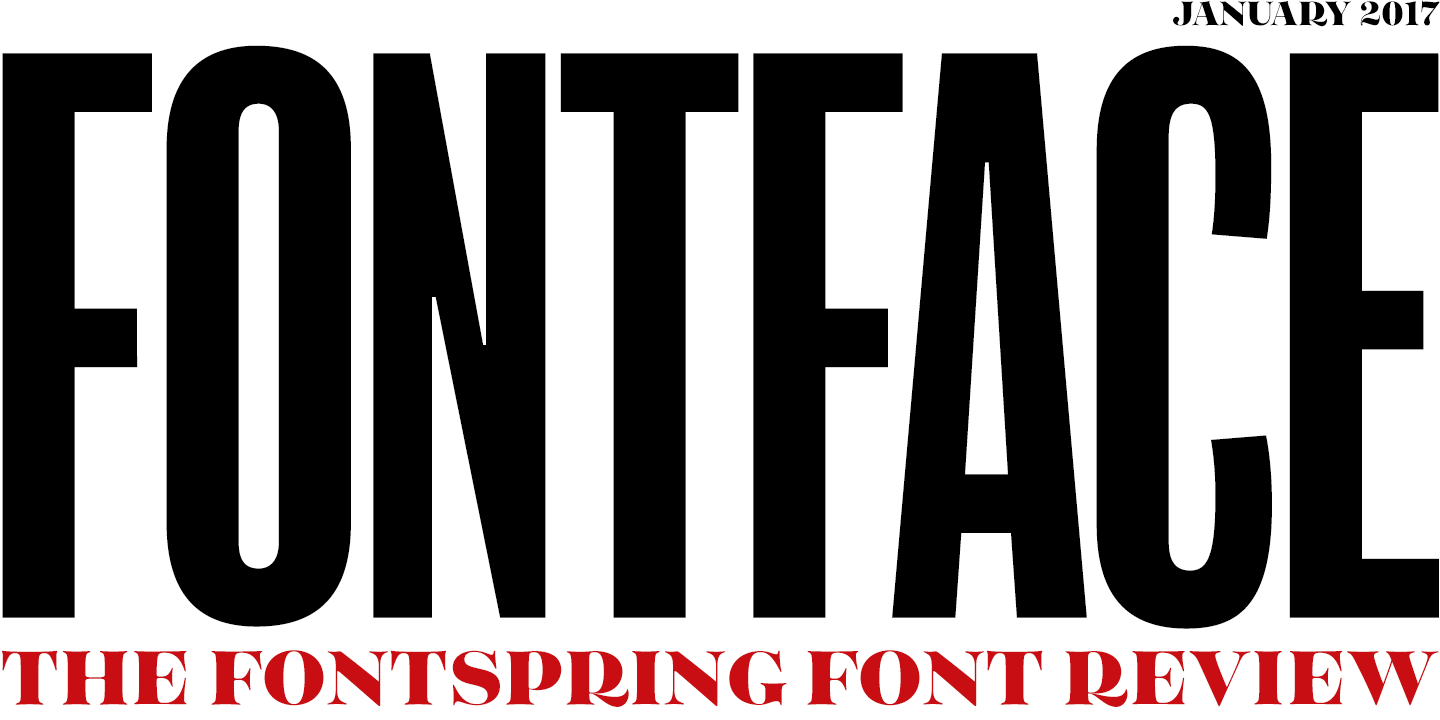
Zooja takes the fun and light-hearted feel that most brush scripts exude and turns it up to 11. Its focus on high-contrast strokes and varied alternates makes it work for designs of all kinds, shown off particularly well by the 20+ posters we have showcased on our site. Also available are doodads, catchwords, and banners, which are some of the most interesting we’ve seen in a while. |
Glenn Fleishman of The Atlantic traces the origins of straight quotes and their increased usage in modern and web-based publications. He asks some good questions and comes to the conclusion that it might not matter so much that typographers quotes are going out of style. We’re disappointed, but not surprised.
As part of her master’s thesis, Sooji Lee created a machine to hand draw letters from the Bodoni typeface. A critique of the mechanical world we live in, where machines have replaced the “human element” of design, we just think it’s really cool.
In an opinion piece, Mark Oppenheimer laments the disappearance of cursive in our society. Not taught in some schools, many children grow up never having learned it. Honestly, when was the last time you wrote something out in cursive? Other than signing my name, I can’t remember.
Masthead set in Balboa & Tenez, body set in Questa Slab & Tenso |